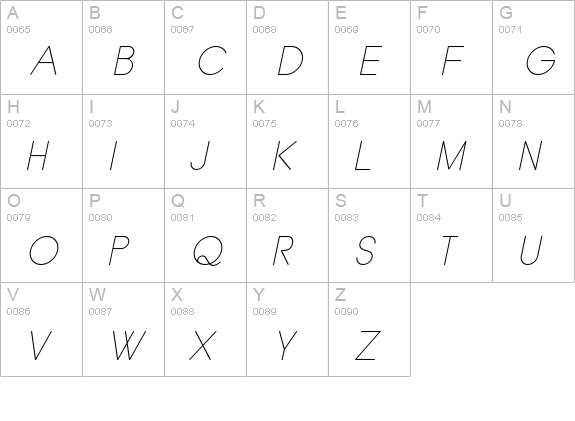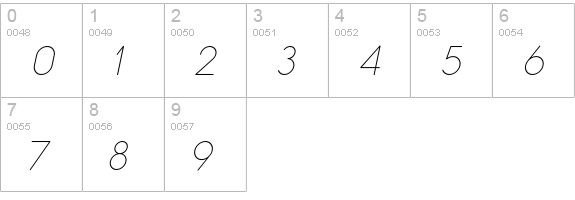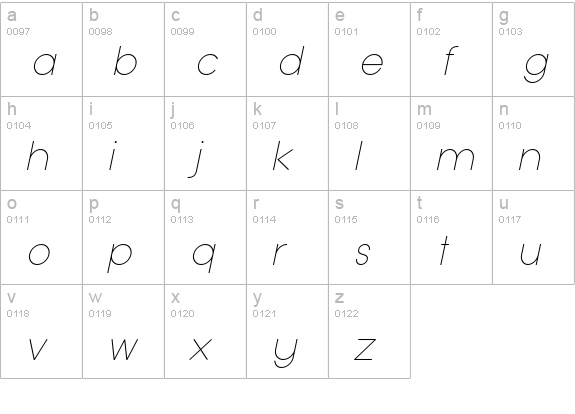
Typo Grotesk Thin Italic Font Details
Typo Grotesk Thin Italic is a delicate, low-contrast, italic variant in the Typo typeface family \xE2\x80\x94 well suited to fashion editorial, minimal branding, and high-contrast display.
Typo Grotesk Thin Italic font is a visually stunning and versatile typeface that effortlessly combines elegance with modernity. Its thin strokes and italic slant create a sense of sophistication and dynamism, making it perfect for projects that require a touch of refined style. This font is meticulously crafted with attention to detail, ensuring that each character is beautifully balanced and harmonious. The sleek and slender letterforms exude a sense of delicacy while maintaining excellent legibility, making it suitable for a wide range of design purposes. Whether you are working on branding, editorial design, or web design, Typo Grotesk Thin Italic font offers a variety of possibilities. Its versatility allows it to effortlessly adapt to different contexts, from fashion magazines to corporate websites. The italicized nature of this font adds a hint of playfulness and expressiveness to your design, giving it a unique and captivating edge. One of the greatest advantages of Typo Grotesk Thin Italic font is that it is freely available to download at FontsMarket.com. This means that you can easily access and incorporate this font into your projects without any restrictions. The freedom to utilize this exceptional typeface adds incredible value to your creative endeavors, providing you with endless opportunities to explore and experiment. In conclusion, Typo Grotesk Thin Italic font is a remarkable choice for designers seeking a sleek and sophisticated typeface. Its thin strokes, italic slant, and excellent legibility make it suitable for a wide range of projects, while its free availability at FontsMarket.com ensures that you can effortlessly incorporate it into your designs. Whether you are aiming for elegance, modernity, or a combination of both, this font is sure to elevate your design to new heights.